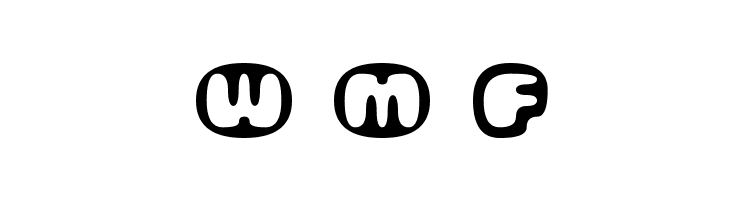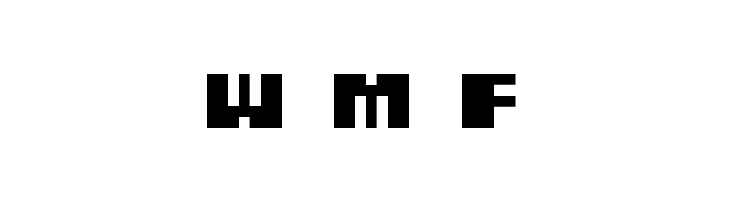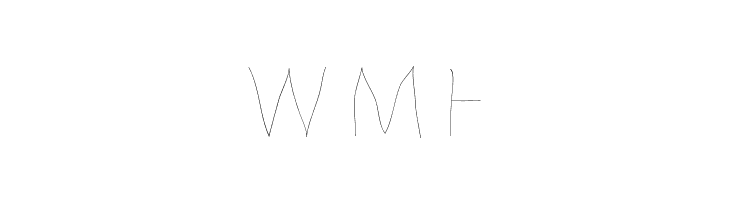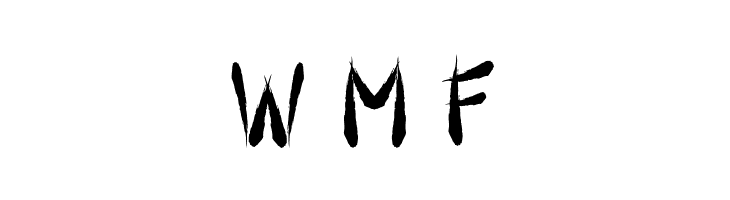
A modern, italic sans-serif font with clean lines and a sleek appearance.
( Fonts by Steeve Gruson )
A modern, geometric font with a futuristic and edgy design.
( Fonts by Steeve Gruson )
A playful, hand-drawn font with irregular, fluid characters.
( Fonts by Steeve Gruson )
A delicate, hand-drawn font with thin, whimsical lines.
( Fonts by www.junkohanhero.com )
An eclectic, collage-style font with mixed serif and sans-serif characters.
( Fonts by Otto Maurer Design )
A bold, expressive brush-style font with dynamic strokes and a hand-painted appearance.